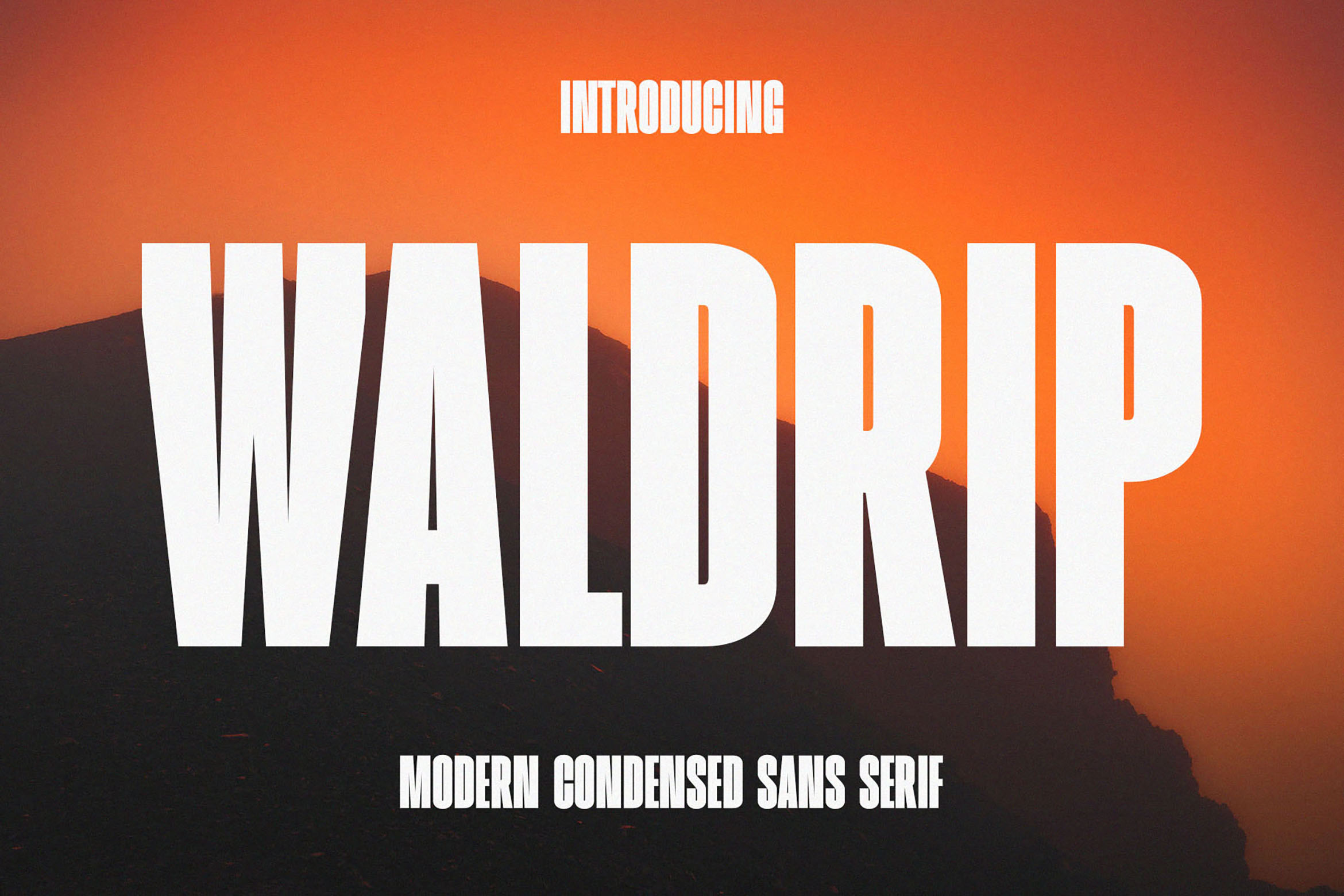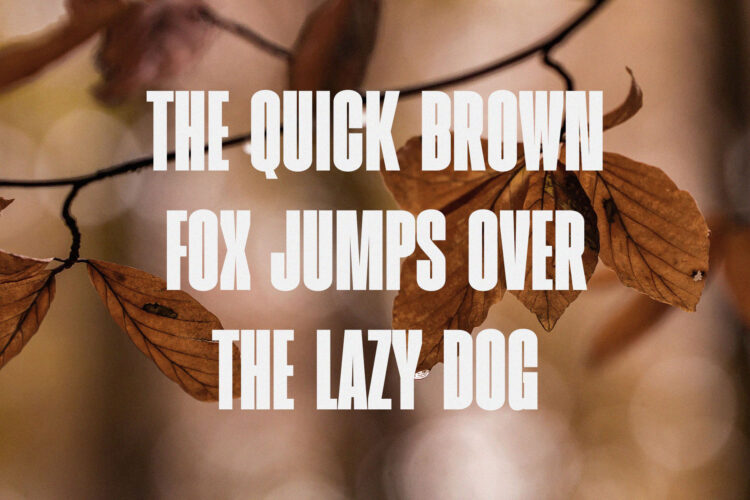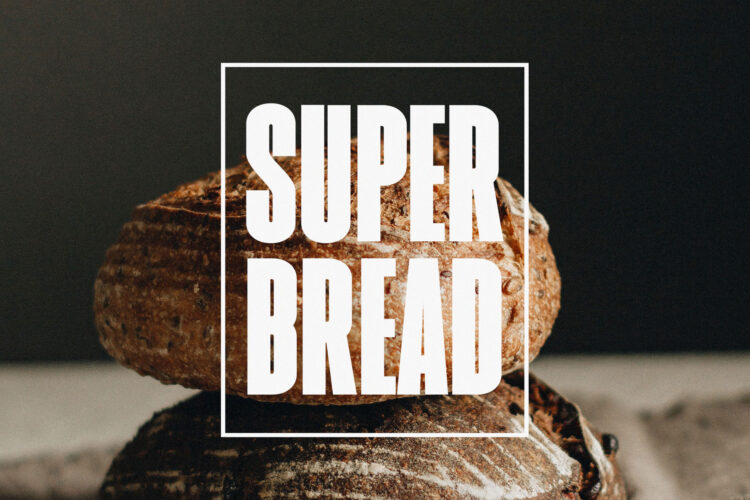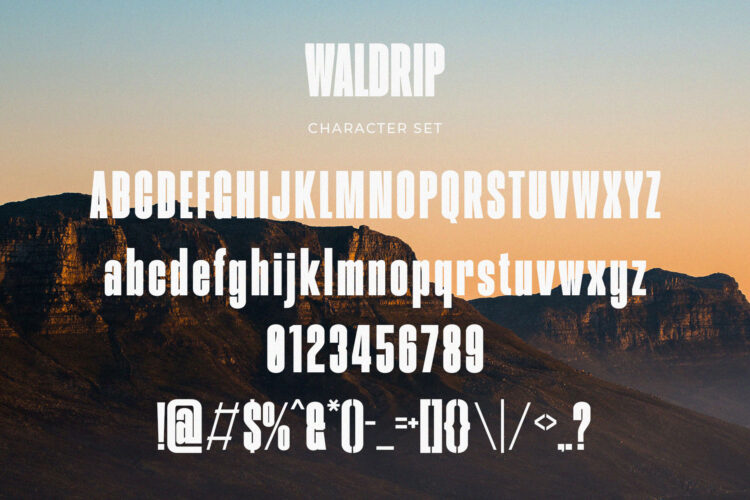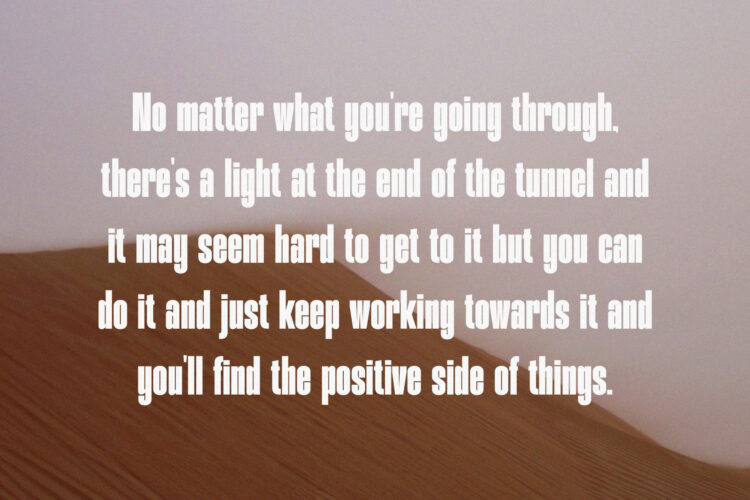
Introducing our new Waldrip, modern sans serif font with elegant style this is perfect for branding, logos, invitation, magazines, product packaging and more.
Waldrip – Modern Condensed Sans